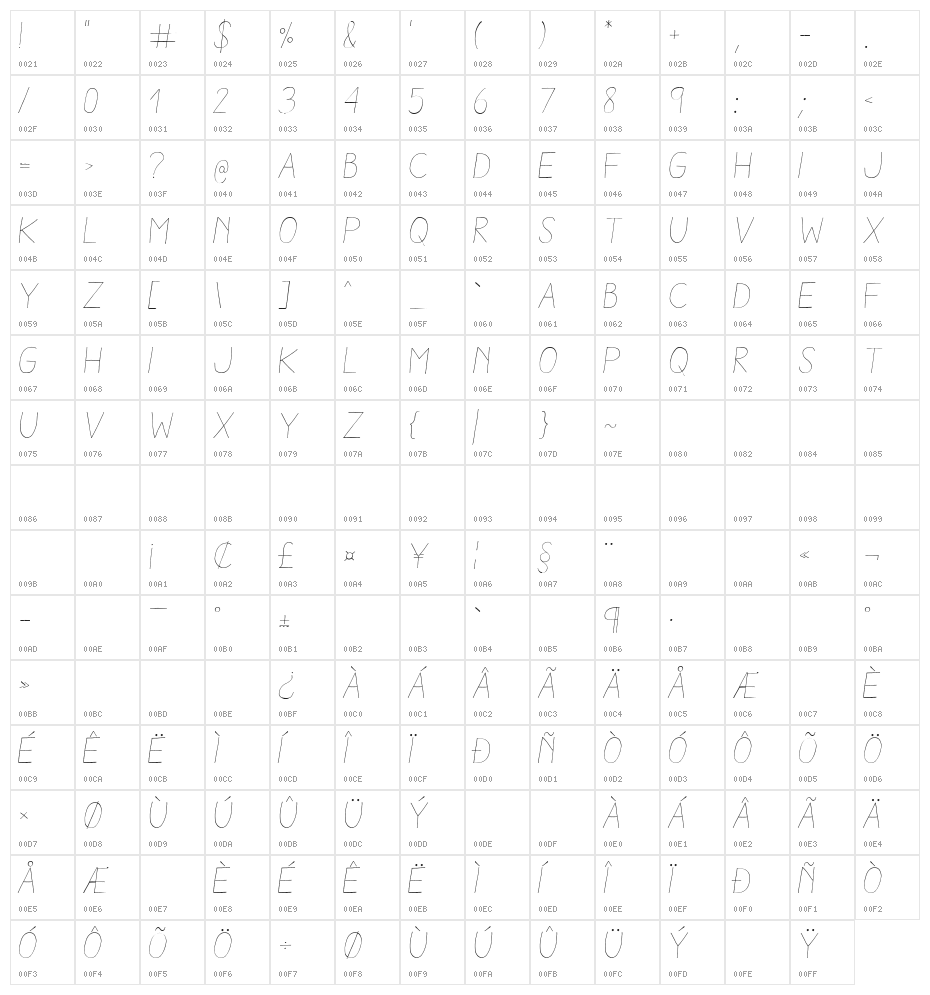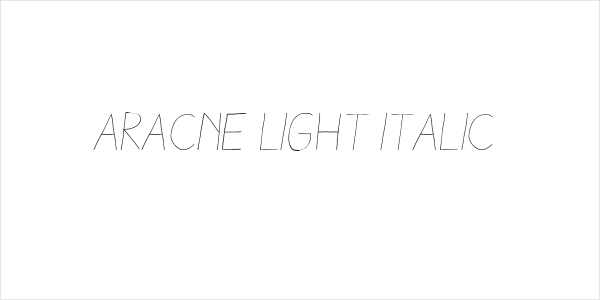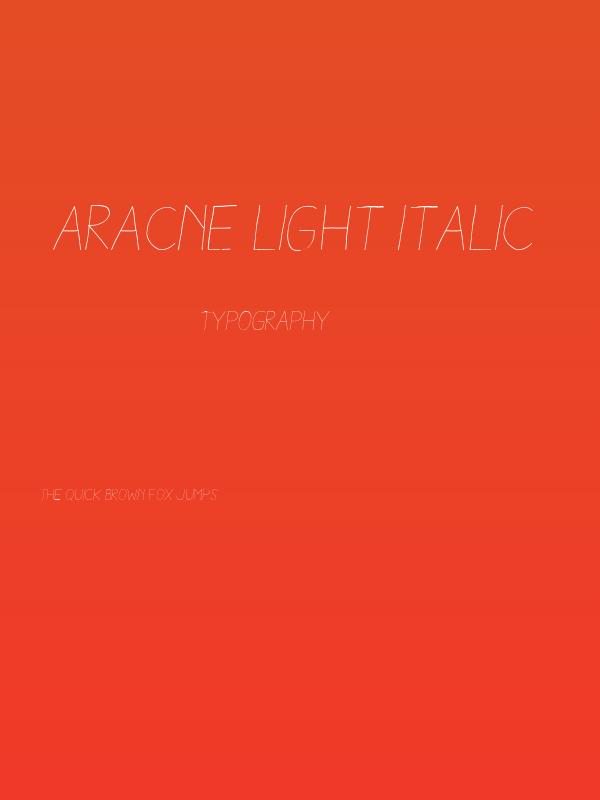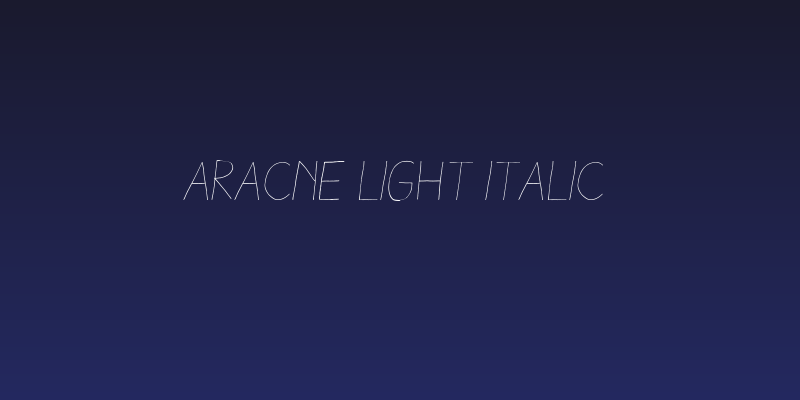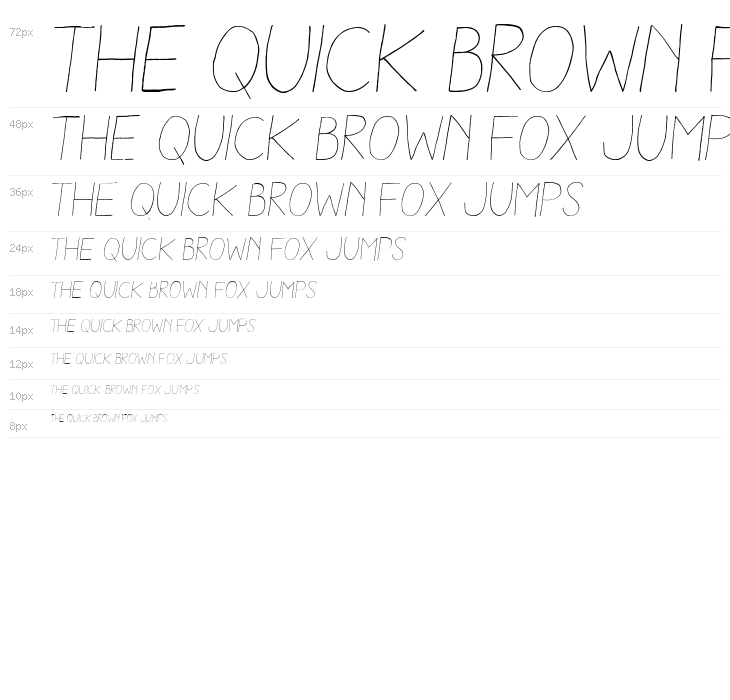
Aracne Light Italic Font
Aracne Light Italic Description
This font exhibits a delicate and light appearance with an italic style, characterized by thin, elongated strokes that give it an airy and elegant feel. The letters are slightly slanted, enhancing the sense of movement and fluidity. The overall design is minimalist, with a focus on clean lines and simplicity. The uppercase and lowercase letters maintain a consistent style, with a uniform stroke width that contributes to its refined look. The numerals and special characters are designed to match the letterforms, ensuring a cohesive appearance across all glyphs.
| Proposed Projects | Ideal for projects that require a touch of elegance and sophistication, such as wedding invitations, fashion magazines, or high-end branding materials. |